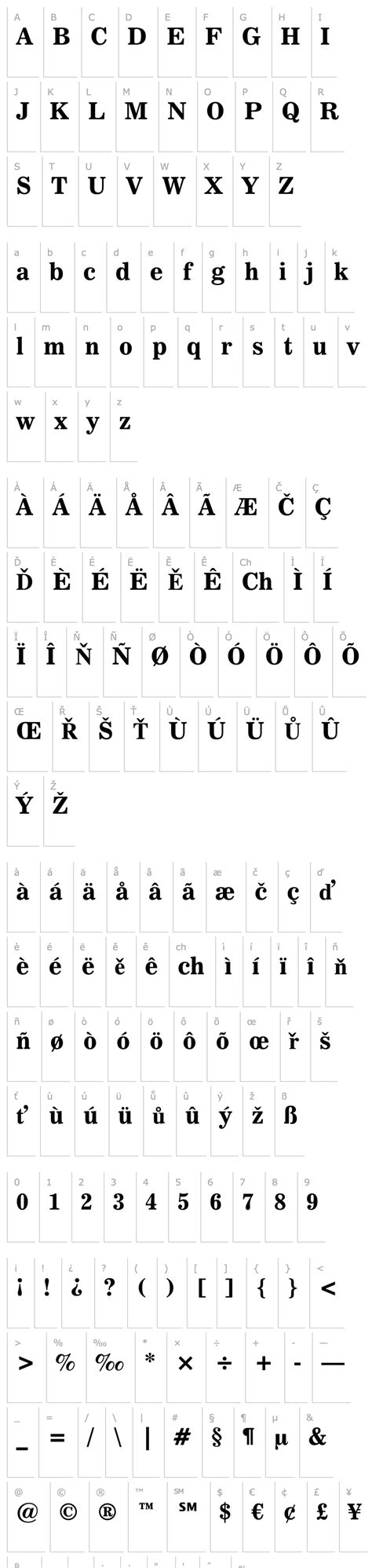
Hey guys, ever found yourself staring at a design project and thinking, “I need a font that screams bold, stylish, and just plain cool ?” Well, you’re in luck! Today, we’re diving deep into the world of NEWS701BT Bold , a font that’s been making waves for its distinctive character and versatility. Whether you’re a seasoned graphic designer, a budding web developer, or just someone who loves to jazz up their documents, understanding how to find and utilize fonts like NEWS701BT Bold is a game-changer. This isn’t just about downloading a file; it’s about unlocking a tool that can elevate your entire creative output. We’ll explore why this particular font has gained traction and, most importantly, guide you through the process of getting it onto your system so you can start creating some seriously eye-catching stuff. So, buckle up, because we’re about to make your design life a whole lot easier and a whole lot bolder.
Why Choose NEWS701BT Bold?
So, what’s the big deal with NEWS701BT Bold , you ask? Well, let me tell you, it’s all about the impact . This font isn’t shy; it commands attention. Its bold weight is perfect for headlines, titles, logos, and any place you need your text to stand out and make a statement. Think of it as the rockstar of your font collection – it’s got personality, it’s confident, and it knows how to steal the show. But don’t mistake its boldness for clumsiness; NEWS701BT Bold often maintains a surprising level of clarity and readability, even at larger sizes. This balance is crucial. You want a font that’s impactful without being illegible, right? That’s where NEWS701BT Bold shines. It’s designed to be both aesthetically striking and functionally sound. The design nuances, like its slightly condensed structure and clear letterforms, make it a solid choice for everything from print materials to digital interfaces. It’s the kind of font that can adapt to various styles, adding a touch of modern sophistication or a classic, powerful feel depending on how you use it. It’s a real workhorse, guys, and once you start using it, you’ll wonder how you ever managed without it. The aesthetic appeal is undeniable, offering a robust yet refined presence that can significantly enhance the visual hierarchy of your designs. It’s not just a typeface; it’s a design element that contributes to the overall message and brand identity. This font is particularly well-suited for projects that require a strong typographic presence, such as posters, book covers, and branding materials. Its inherent weight and character ensure that it performs exceptionally well in environments where legibility and visual punch are paramount. The versatility extends to its application across different media, proving its worth in both digital and print realms. Many designers appreciate it for its unique character that avoids the common pitfalls of being too generic or too niche, striking a perfect balance that makes it broadly applicable yet distinctively memorable. Its ability to convey strength and authority makes it an excellent choice for corporate communications, editorial design, and any application where a confident voice is needed.
Tips for Using NEWS701BT Bold Effectively
Now that you’ve got NEWS701BT Bold installed, let’s talk about making it work for you. This font is bold, no doubt, but like any powerful tool, it needs to be wielded with a bit of finesse. First off, don’t overuse it . Its strength lies in its ability to make a statement. Use it for your primary headlines, subheadings, or key call-to-action buttons where you need maximum impact. Throwing it into every single paragraph will likely make your design look cluttered and overwhelming, and frankly, a bit shouty. Think contrast! Pair NEWS701BT Bold with a simpler, lighter font for body text. This creates a beautiful visual hierarchy, guiding the reader’s eye and making your content easier to digest. A sans-serif font often pairs well with a bold, slightly more stylized font like NEWS701BT Bold, creating a modern and clean look. Conversely, pairing it with a classic serif can give a more traditional, authoritative feel. Experiment with spacing – kerning (the space between individual letters) and leading (the space between lines of text) are your best friends. For bold fonts, slightly increased letter spacing can sometimes improve readability, especially in all-caps settings. Adjusting line spacing is also crucial; too tight, and it feels cramped, too loose, and it loses its impact. Consider the context. Where will this design be seen? On a small mobile screen? A large billboard? NEWS701BT Bold generally holds up well, but testing its legibility at different sizes and resolutions is always a smart move. For branding, use it consistently. If it’s your main headline font, make sure it’s used that way across all your platforms – website, social media, print collateral. This builds brand recognition. Another great use is for highlighting important figures or statistics. Imagine a report with key data points rendered in NEWS701BT Bold – it immediately draws the eye and emphasizes the significance of that information. Its versatility means it can work in a variety of fields, from tech startups needing a strong modern identity to publishing houses creating impactful cover designs. Don’t be afraid to play with color too. While it’s a bold font, how it interacts with color can dramatically change its feel. A vibrant color might make it pop, while a more subdued tone can lend it an air of understated power. Ultimately, the best way to use NEWS701BT Bold effectively is to understand its strengths and use them strategically. It’s a font that adds weight and personality, so let it do the heavy lifting where it counts most, and complement it with other elements for a balanced and professional design. Remember, less is often more when you have a font this powerful at your disposal. Let it speak volumes without overwhelming your audience.
Conclusion: Make Your Designs Pop with NEWS701BT Bold
So there you have it, guys! We’ve explored the compelling reasons why NEWS701BT Bold is such a fantastic font choice, from its undeniable visual impact to its surprising versatility. We’ve walked through the essential steps of how to safely and effectively download font NEWS701BT Bold from reputable sources and get it installed on your system, ready for action. And importantly, we’ve shared some pro tips on how to use this powerful typeface strategically, ensuring your designs don’t just look good, but they communicate effectively. This isn’t just about adding another font to your collection; it’s about equipping yourself with a tool that can significantly enhance your creative projects. Whether you’re crafting a website, designing a marketing brochure, or even just putting together a presentation, the right typography can make all the difference. NEWS701BT Bold offers that strong, confident voice that can elevate your message and capture your audience’s attention. Remember to always prioritize safe downloading practices and respect font licensing to keep your creative journey smooth and legal. So go ahead, give NEWS701BT Bold a try. Experiment with it, pair it with other fonts, and see how it transforms your headlines, titles, and key messages. With its bold presence and clean lines, it’s sure to make your designs pop and leave a lasting impression. Happy designing, and may your fonts always be bold and beautiful!